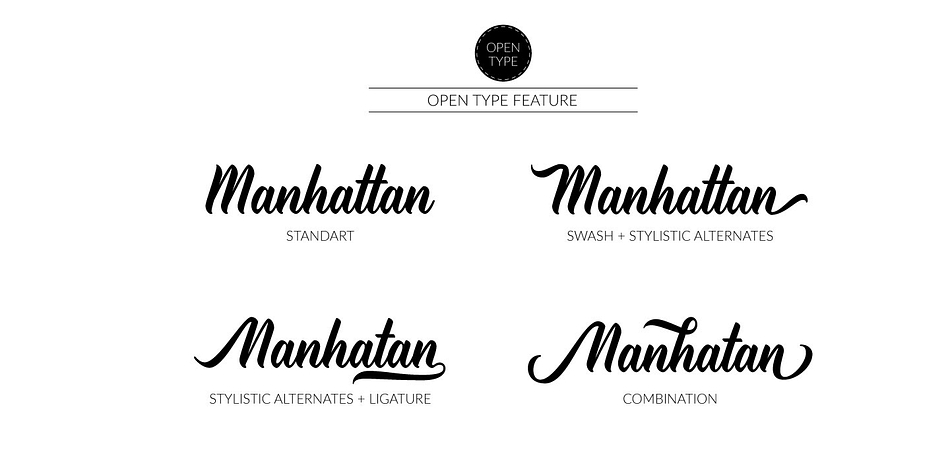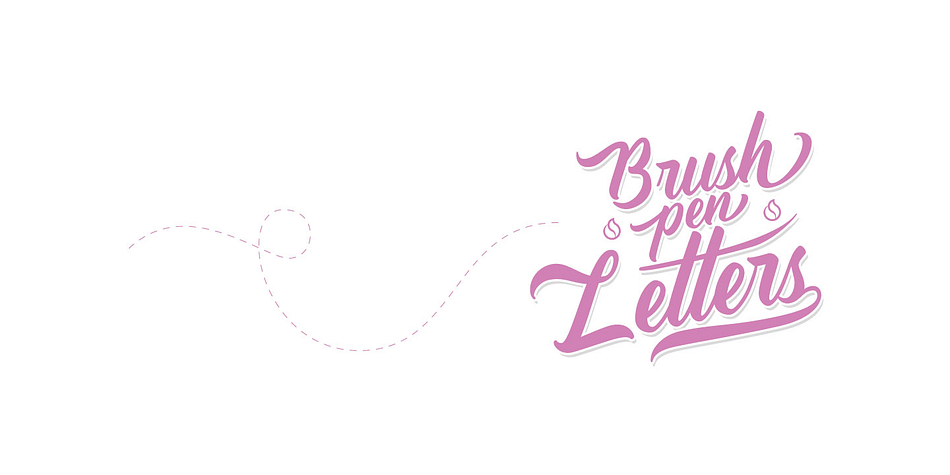
Trademark
Trademark is a brush script font published by Jrohcreative.
Hi….let me introduce the TradeMark, this font was created to help you designing brand of yours own or your client, and you also can use it for designing all of the graphic stuff such as badge, sign, packaging, headline, T-shirt/apparel, Poster, etc.
The TradeMark was designed for personal characters such as strong, confidence, dynamic, readable, etc. TradeMark containing 384 Glyphs with 202 alternative characters to improve your design.
Style Brush Script